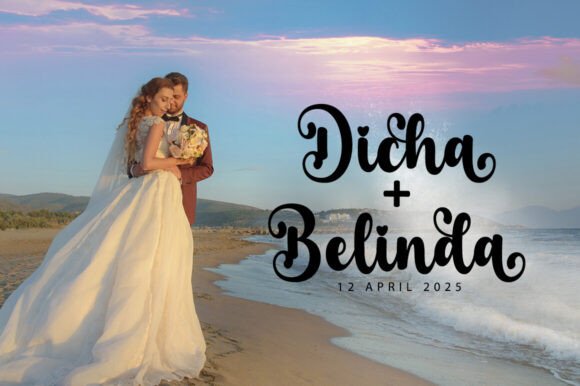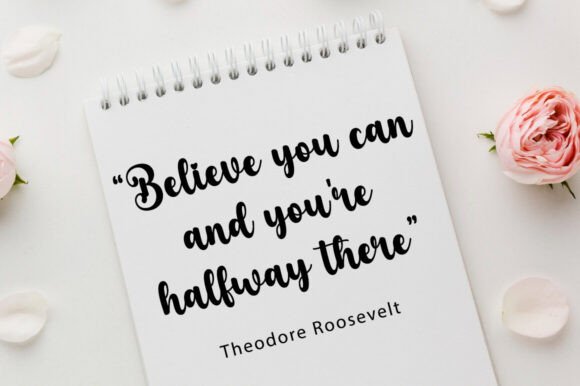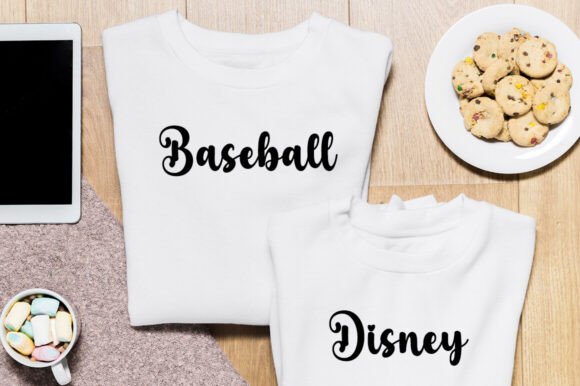
Introduction to Michaella Font
Have you ever sat down with a cup of coffee, a blank sheet of paper, and a pen, only to be stuck on the perfect phrase or message to express your love and gratitude? This is where the magic of typography comes in, and the Michaella Font is here to make your creative moments even more special.
As a designer, you’re always on the lookout for the perfect design resource to elevate your projects. And when it comes to adding a personal touch, Michaella Font is an exceptional choice. With its elegant and stylish handwriting, this font is perfect for wedding invitations, thank you cards, quotes, and any other design that needs a handwritten touch.
What makes Michaella Font truly valuable is its high-quality design and PUA encoded feature, which allows you to access all of its glyphs and swashes with ease. Whether you’re working on a creative project or just need a beautiful font for a personal touch, Michaella Font is a free download that’s sure to impress.
Michaella Font
- High-quality, professional font suitable for creative projects, including graphic design, digital art, and publishing.
- Comes with a transparent background, allowing for seamless integration with various design elements and backgrounds.
- Unique characteristics: elegant, modern design with subtle flair, making it perfect for creating visually appealing and sophisticated designs.
Honest Review: Michaella Font
I recently came across the Michaella Font while searching for a unique design resource for a creative project. As a designer, I’m always on the lookout for high-quality fonts that can elevate my work.
What works well: ✨ The Michaella Font has a beautiful, elegant script that’s perfect for adding a touch of sophistication to any design. The font is highly customizable, with a wide range of styles and weights to choose from. The transparent background option is also a great feature, allowing me to easily integrate the font into my designs.
Here are some of the key features that I like about the Michaella Font:
- High-quality design with a unique, elegant script
- Wide range of styles and weights to choose from
- Transparent background option for easy integration
Limitations: ⚠️ The Michaella Font is a bit limited in terms of its versatility, and it may not be suitable for more modern or edgy designs. Additionally, the font can be a bit difficult to read at smaller font sizes.
Overall, I’m really impressed with the Michaella Font. It’s a great resource for designers who are looking for a high-quality, elegant font to add to their creative project. While it may have some limitations, I think it’s definitely worth checking out.
Michaella Font
Tips for Getting the Most Out of Michaella Font
For a transparent background, use the font on a dark-colored background or create a layer with a transparent background in your design software. Experiment with different font sizes and styles to create a visually appealing design.
The Michaella Font is perfect for creating invitations, social media graphics, and blog posts. Its high-quality design and transparent background make it ideal for any creative project.